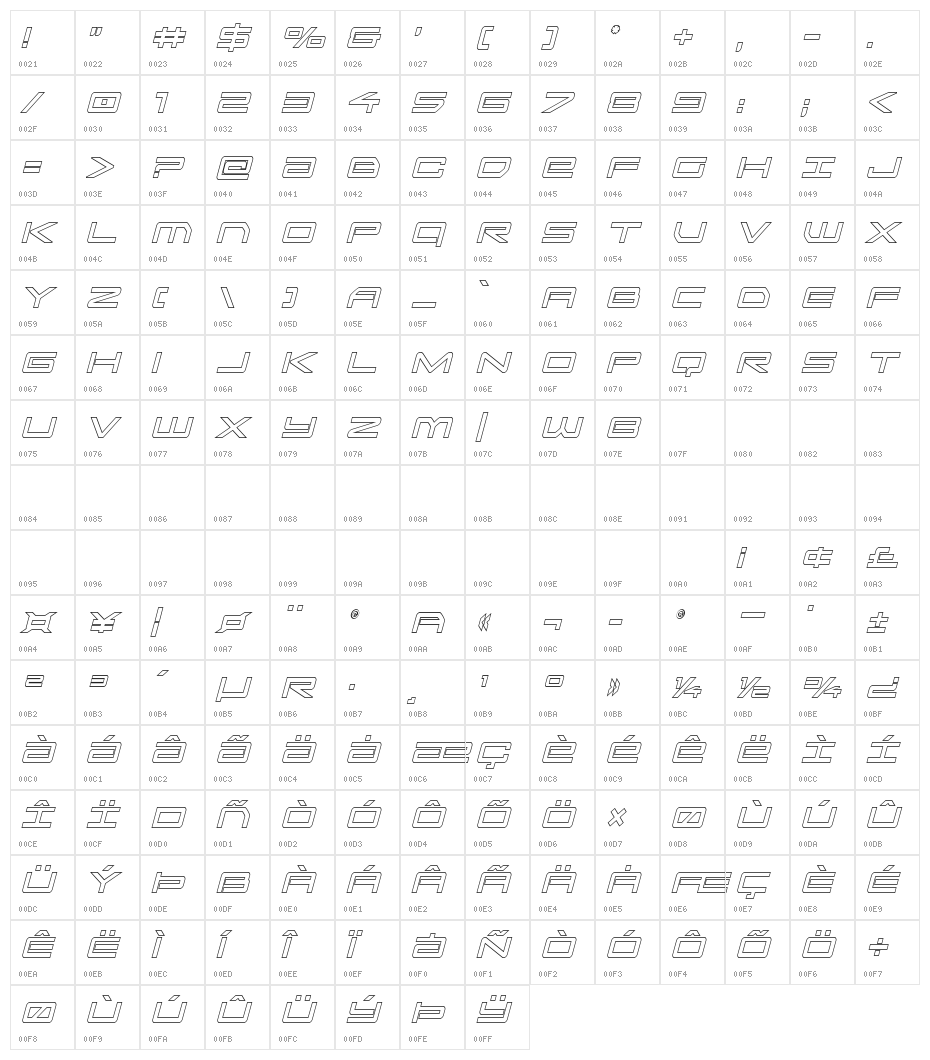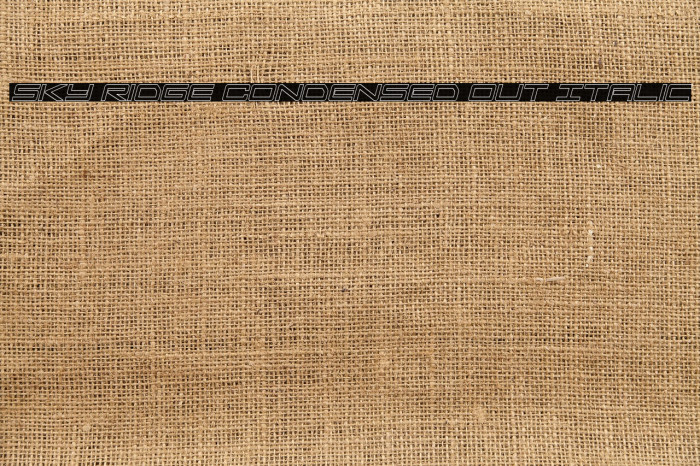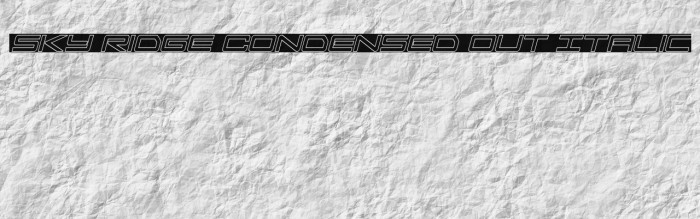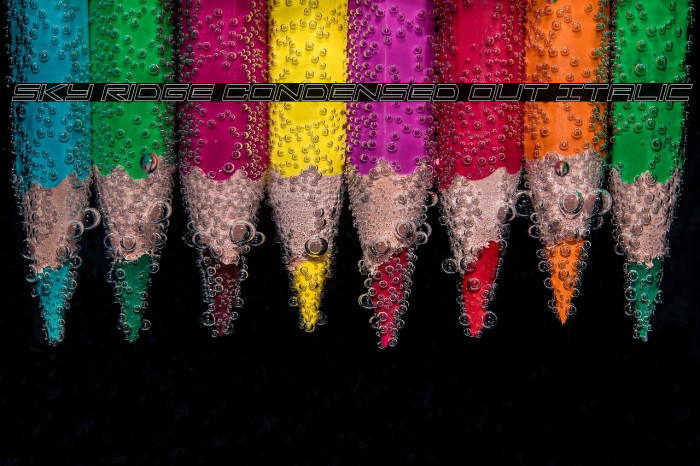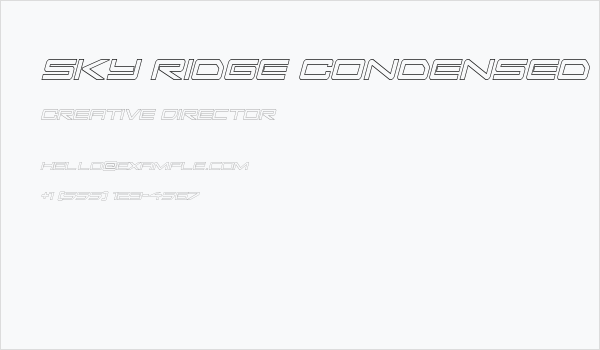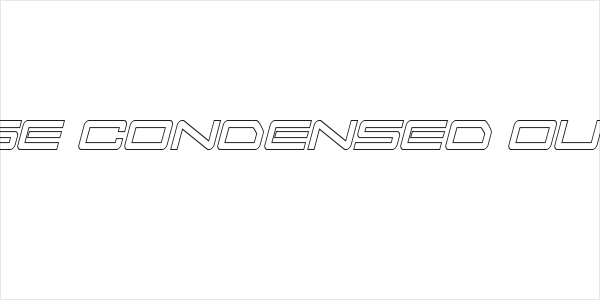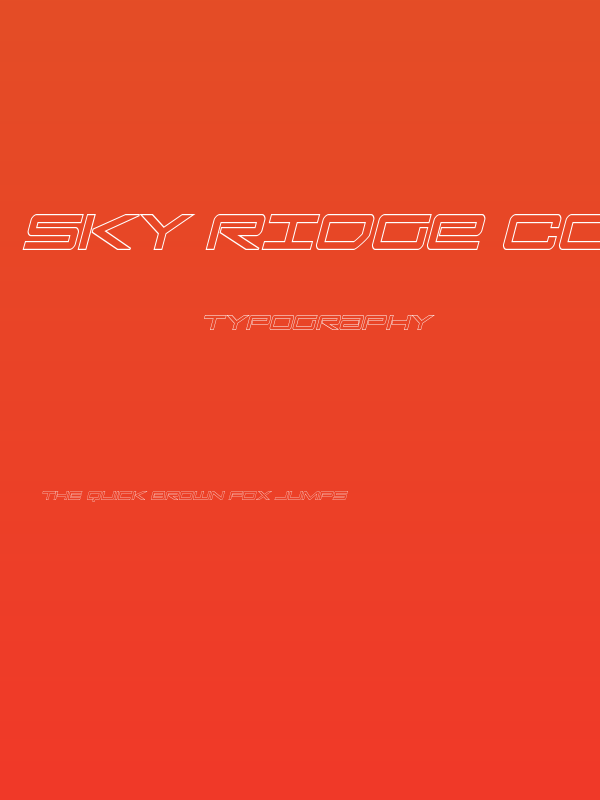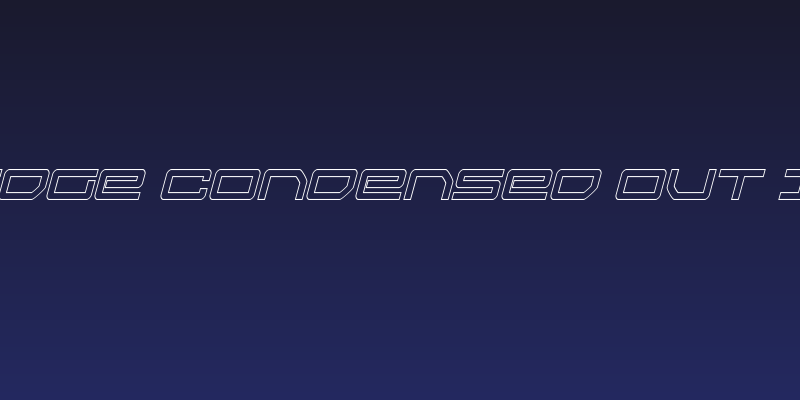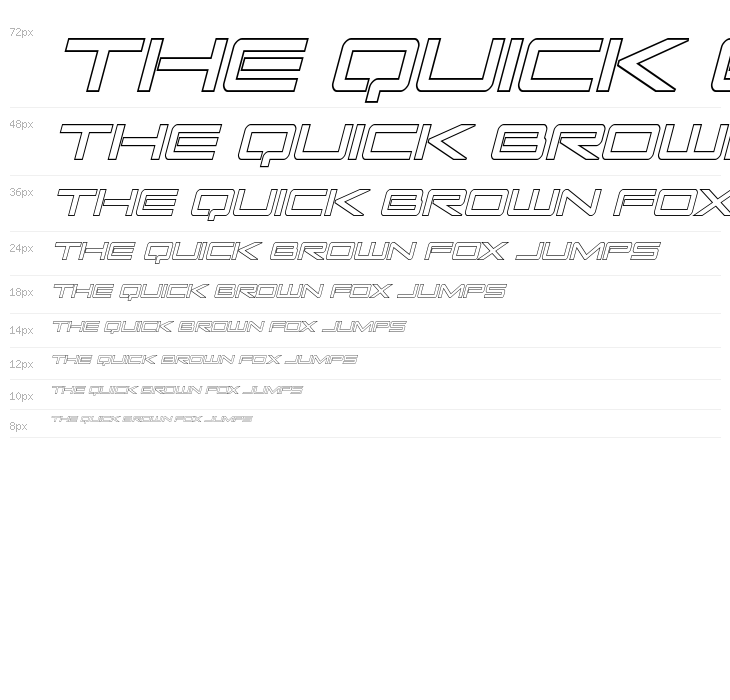
Sky Ridge Condensed Out Italic Font
Sky Ridge Condensed Out Italic Description
This font features a futuristic and geometric design with a condensed and italicized style. The characters are outlined, giving them a hollow appearance that adds a unique visual depth. The angular and sharp edges of the letters contribute to a modern and sleek aesthetic. The uppercase and lowercase letters maintain a consistent style, with a slight slant that enhances the italic effect. Numbers and special characters are designed to match the overall theme, ensuring uniformity across all elements. This font is ideal for projects that require a contemporary and edgy look, such as technology-related branding or sci-fi themed designs.